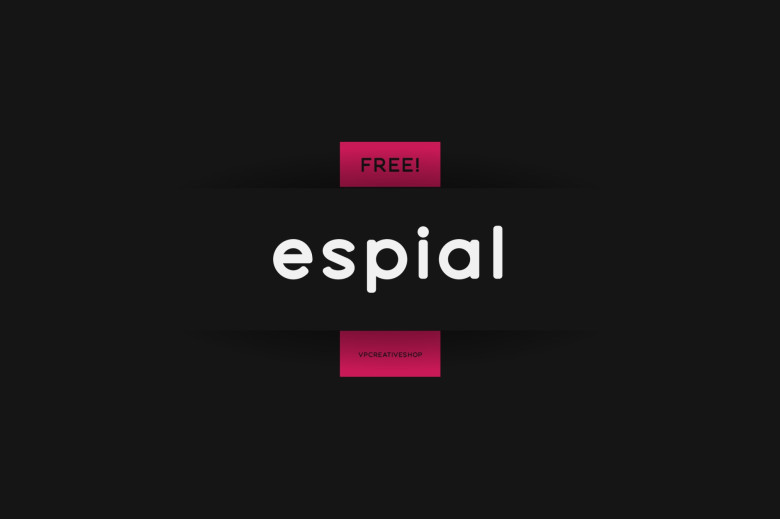
Espial Font
Espial Font is our latest offering! When it comes to creating stunning typographic designs, Espial is your go-to font! With 36 styles covering the 87 languages of the world and beautiful ligature glyphs that give texts an eye-catching appearance – Espial provides endless design possibilities! Retro or modern vibes, Espial has something to meet them both!
Espial Sans Serif Font